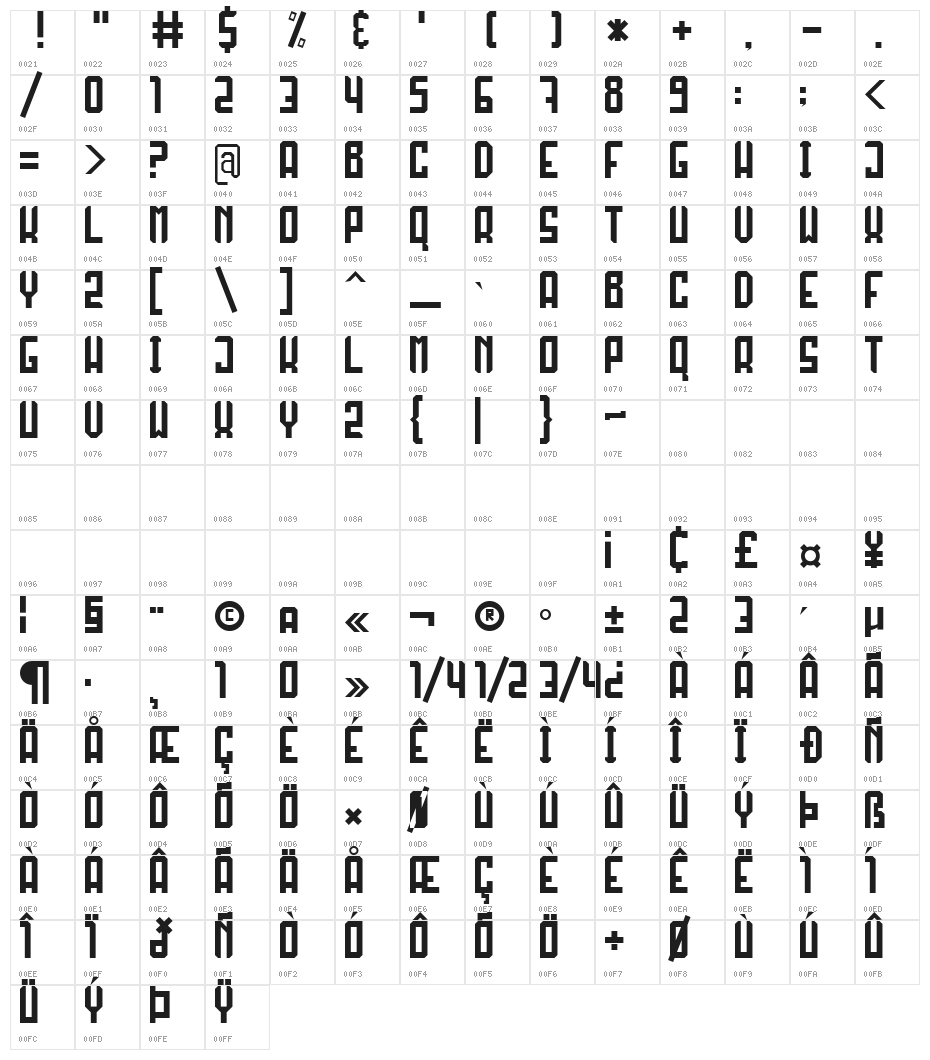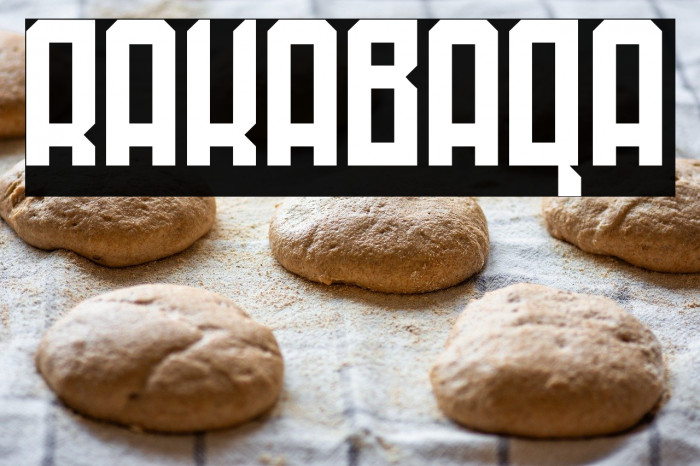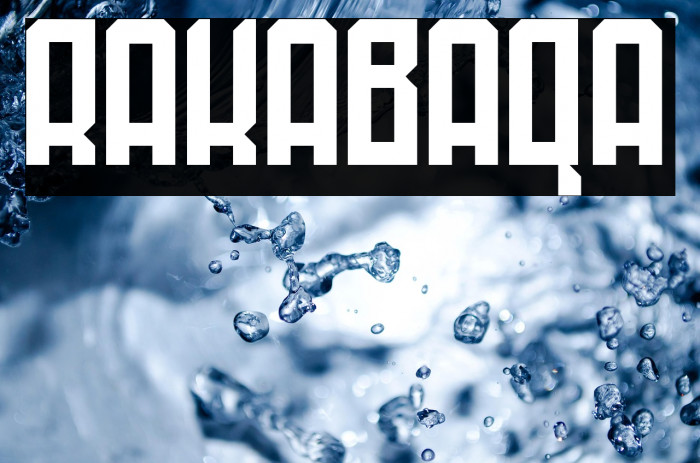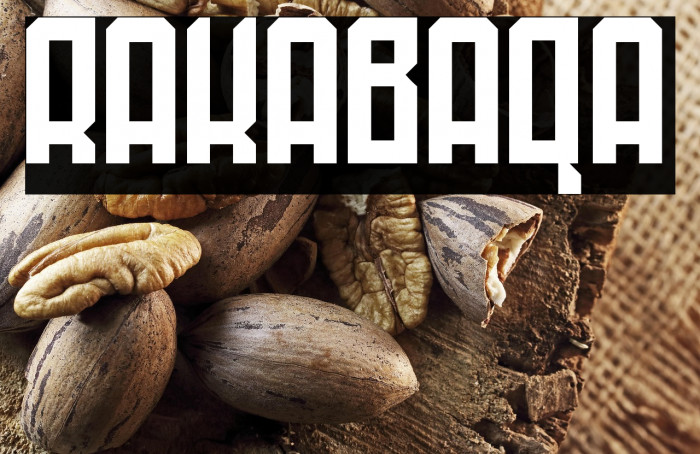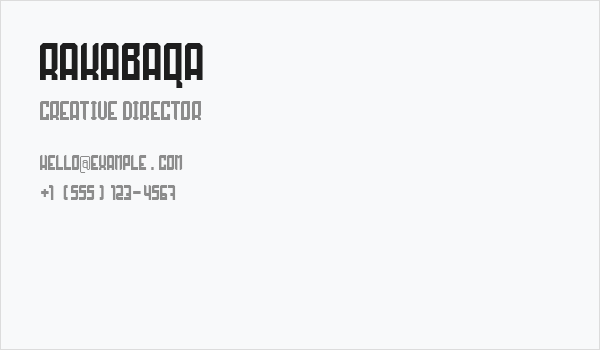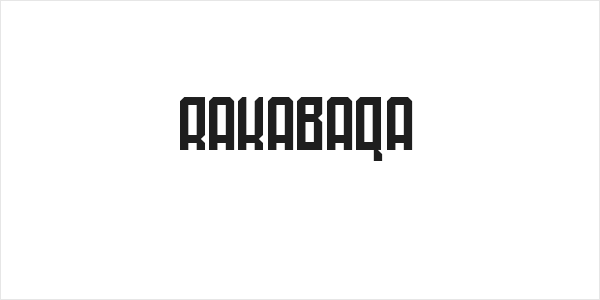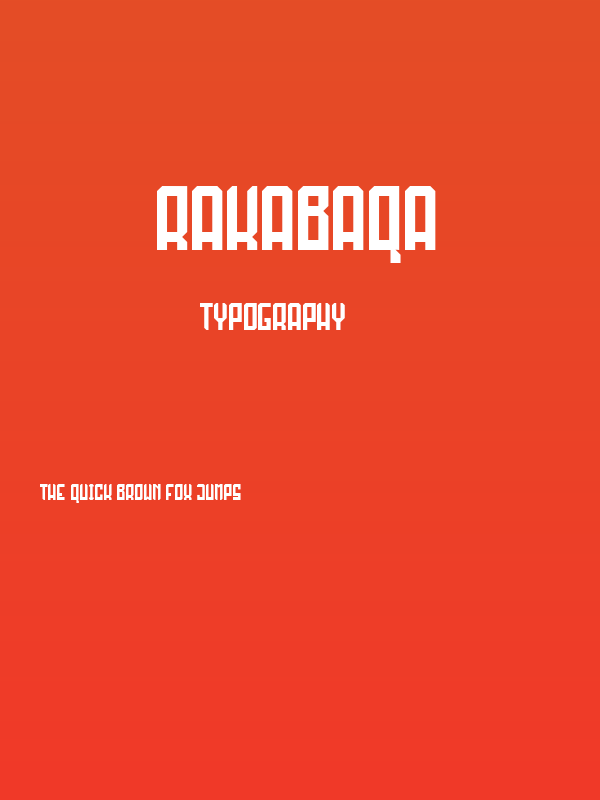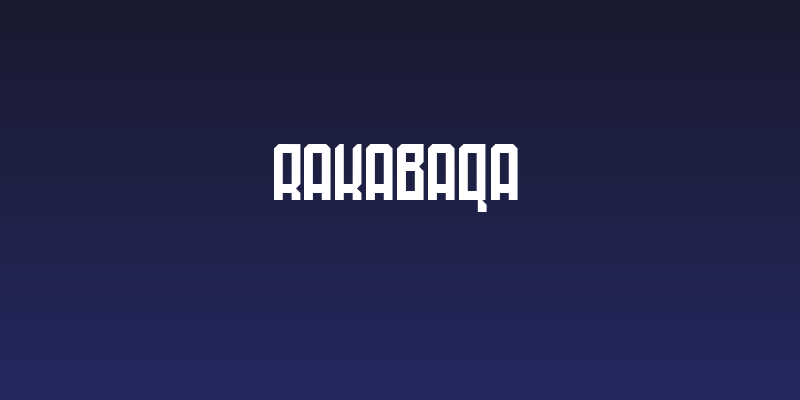
RAKABAQA Font
RAKABAQA Description
This font features a bold, geometric design with a strong, angular structure. The characters are uniformly thick, giving it a robust and impactful appearance. The uppercase letters are particularly striking, with sharp edges and a modern, industrial feel. The numbers and special characters maintain this aesthetic, ensuring consistency across all glyphs. The font's style is reminiscent of digital or futuristic themes, making it suitable for projects that require a bold statement. Its uniformity and lack of curves contribute to a clean, minimalist look.
| Proposed Projects | Ideal for digital interfaces, video game graphics, posters, and branding that requires a futuristic or tech-inspired look. |